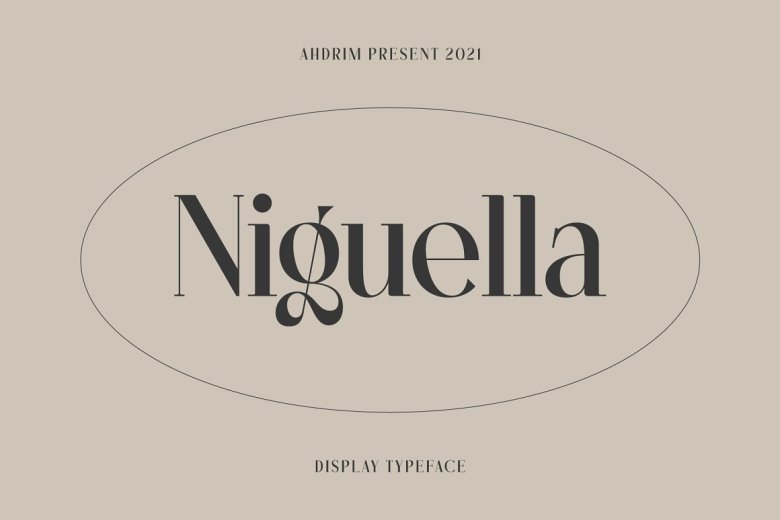
Niguella Font
It’s a modern and elegant font manufactured by Ahdrim Studio. This font is made with a shape that sticks out more to the classics. Niguella is the perfect typeface for any kind of your project, such as advertisements, branding, graphic design, quotes, wedding design, logo for online or offline business, photography, and others. Make your business more elegant beautiful!